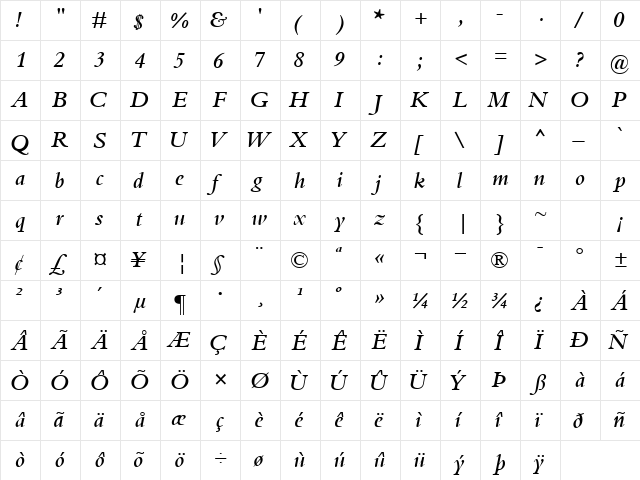
KuriakosSSK Bold Italic Font Preview
Design Context for KuriakosSSK Typeface
KuriakosSSK takes a measured approach to typography — its balanced proportions and neutral character make it a reliable workhorse for both digital and print work. The slanted form adds forward momentum and visual energy. The heavy weight commands attention and anchors typographic hierarchies.
Pro Tip: Try KuriakosSSK for annotation and caption copy alongside an upright companion — the contrast in angle creates a dynamic but ordered typographic system.